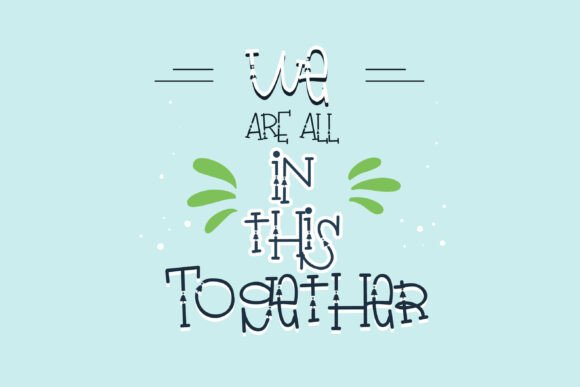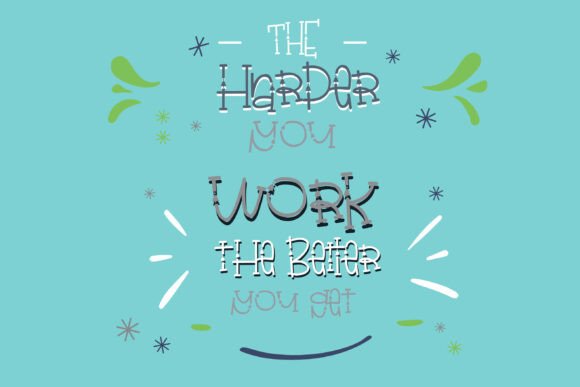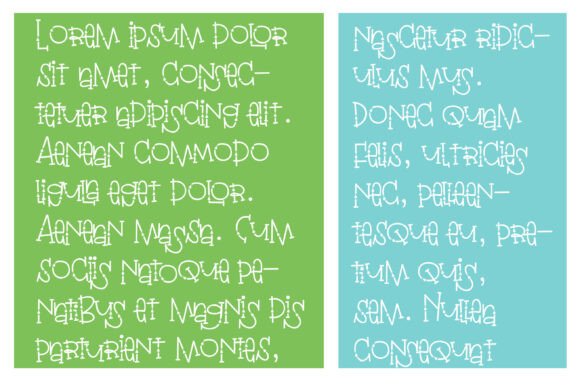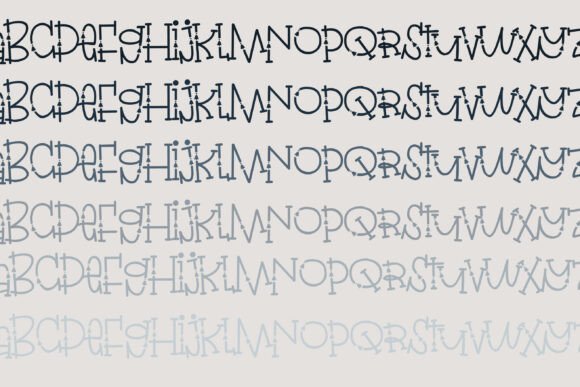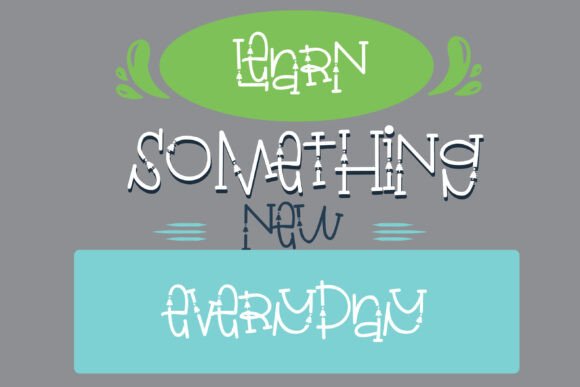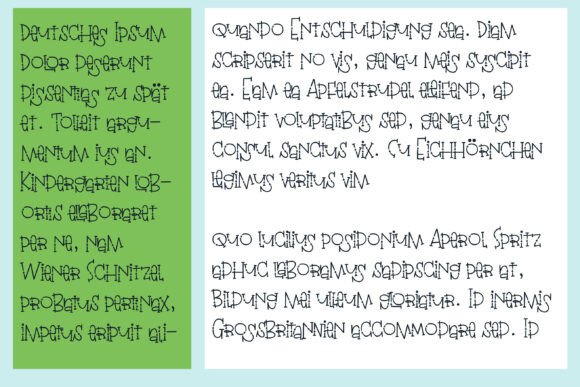
Introduction to Merry Moonshoe Font Font
Fonts play a crucial role in design, and the Merry Moonshoe Font font is a typeface that brings both character and versatility to any project. Whether you’re working on a branding project, a website, or a print design, the Merry Moonshoe Font font offers a unique style that can elevate your work.
This hand-crafted font is a whimsical serif with little Christmas trees throughout.
A hand-crafted font is a font that is designed to look like it was written by hand It is often used for invitations, greeting cards, and other items.
Key Features of Merry Moonshoe Font Font
Why Choose Merry Moonshoe Font Font?
The Merry Moonshoe Font font is more than just a typeface – it’s a design tool that helps you communicate your message with style and clarity. Its unique character set and versatile design make it suitable for a wide range of applications, from elegant invitations to bold headlines.
With its carefully crafted letterforms and balanced proportions, the Merry Moonshoe Font font ensures readability and visual appeal across all mediums.
What makes Merry Moonshoe Font font special?
The Merry Moonshoe Font font stands out with its unique design, exceptional readability, and versatility across various design applications.